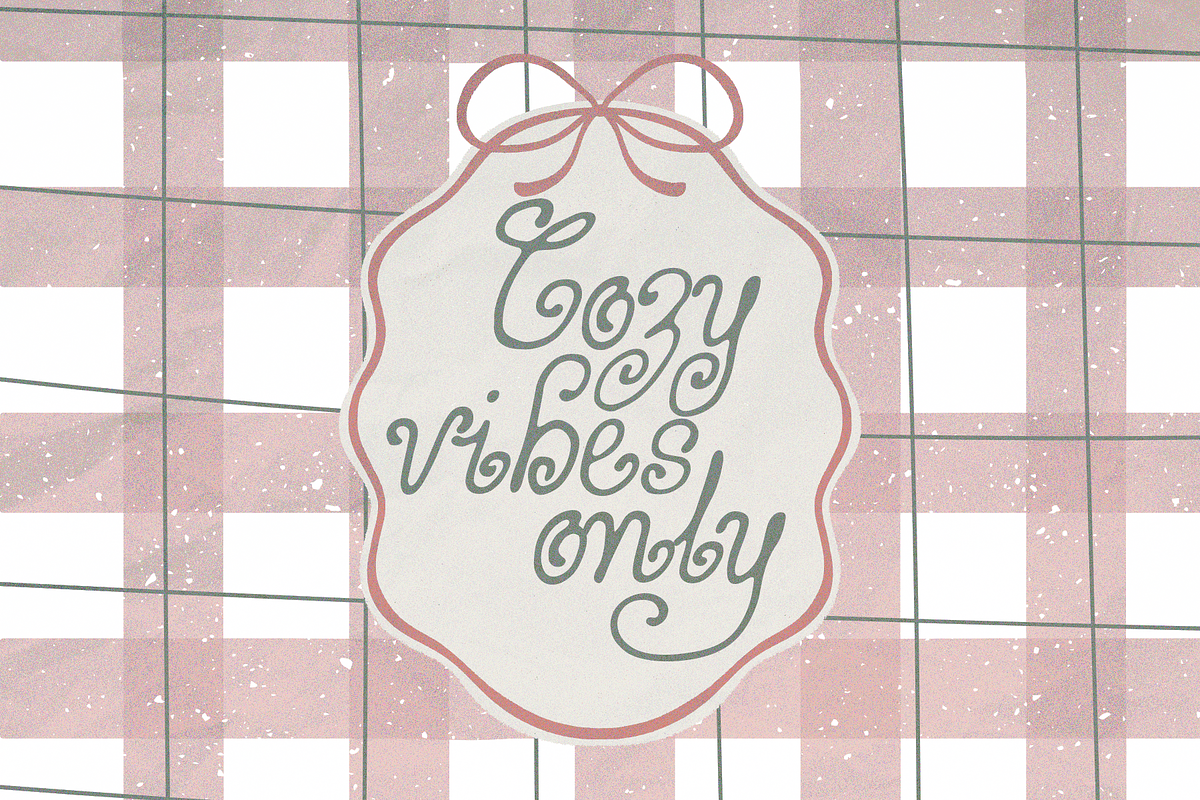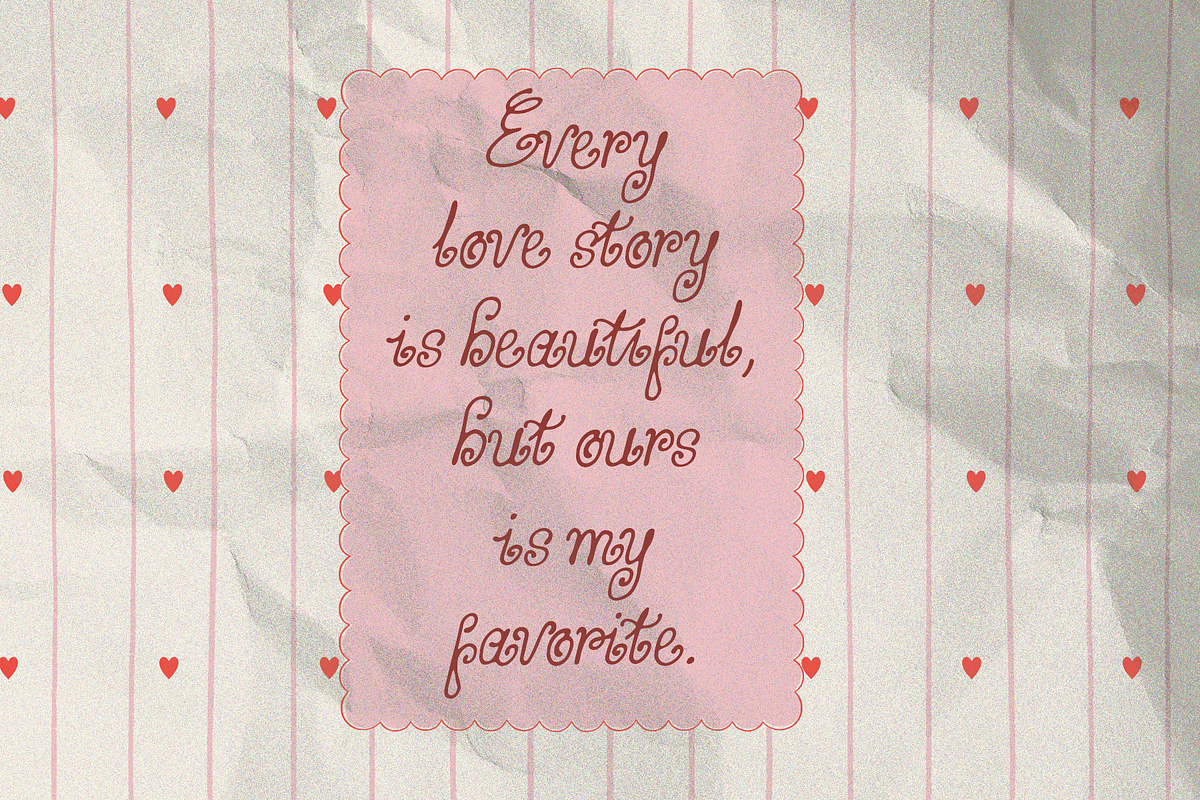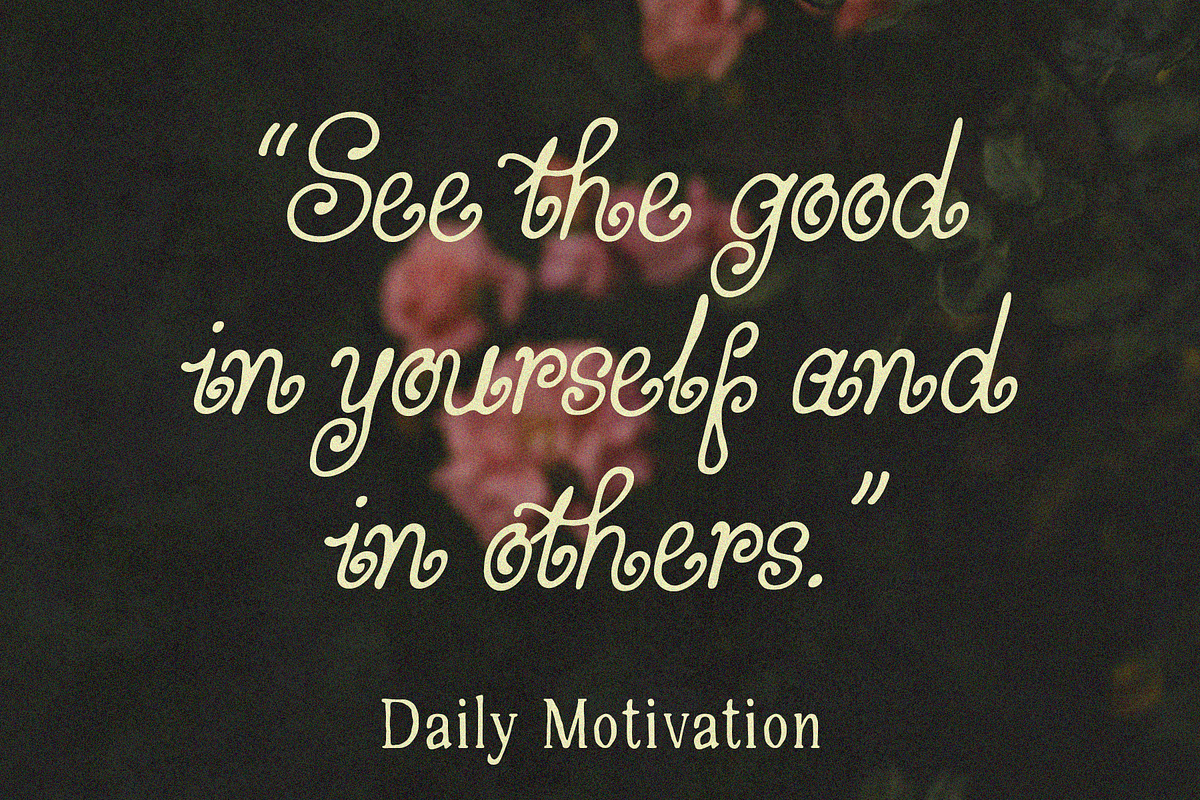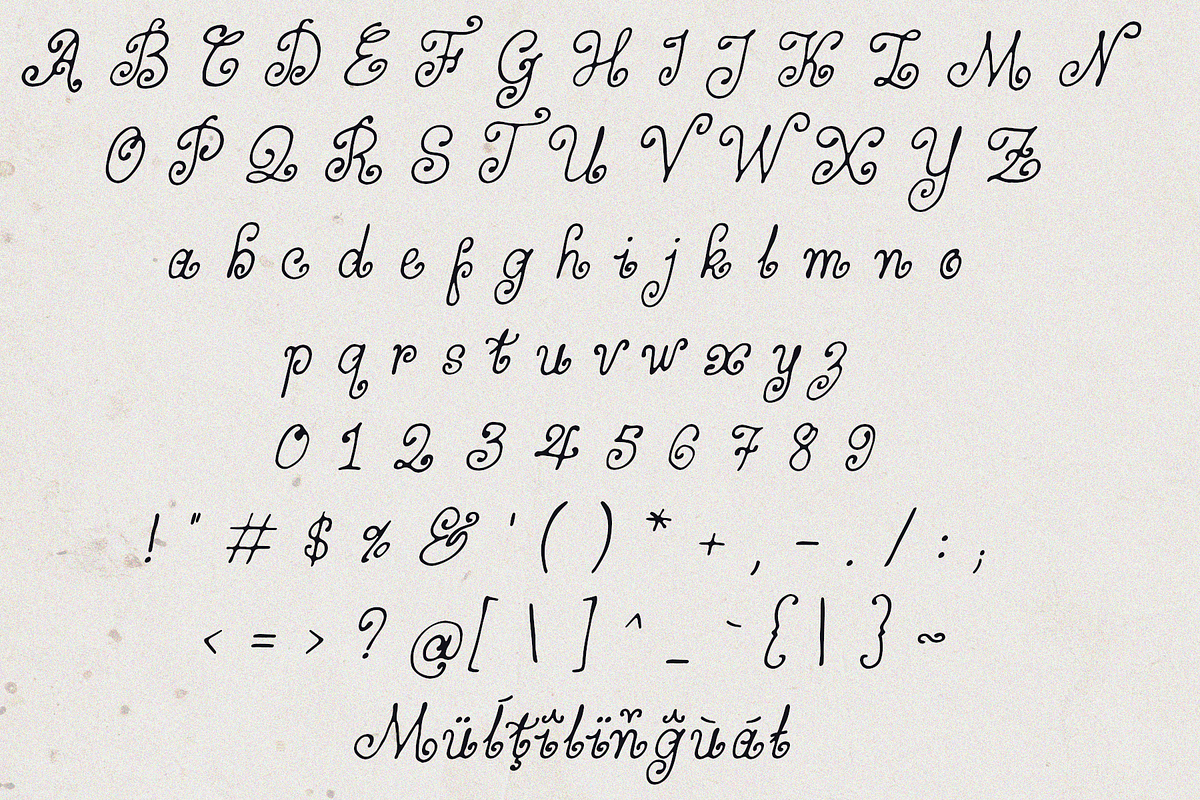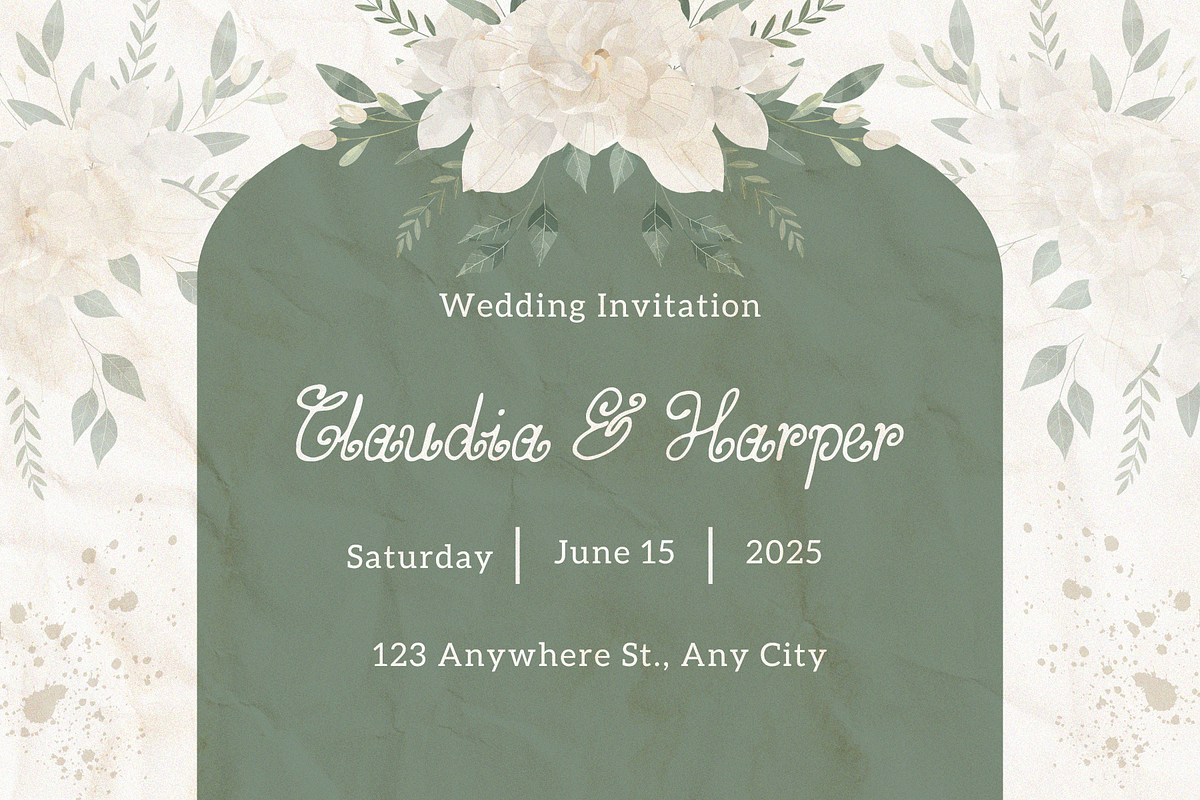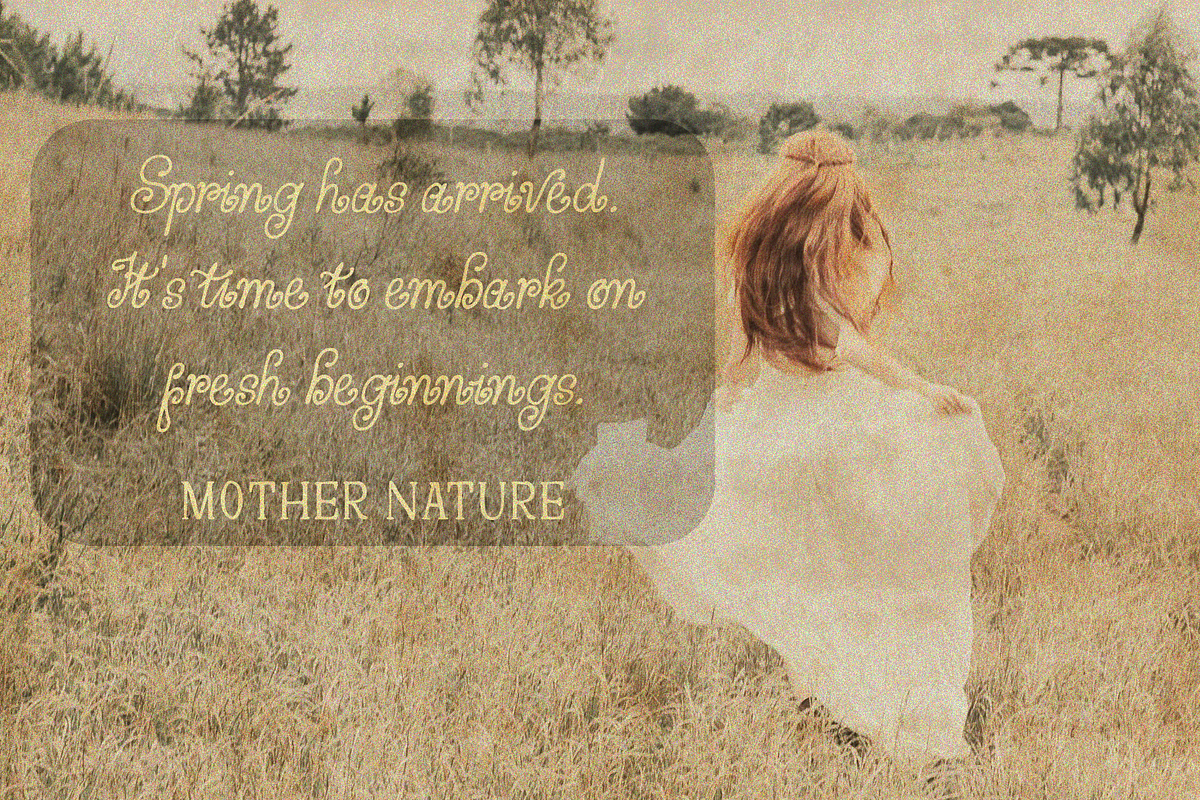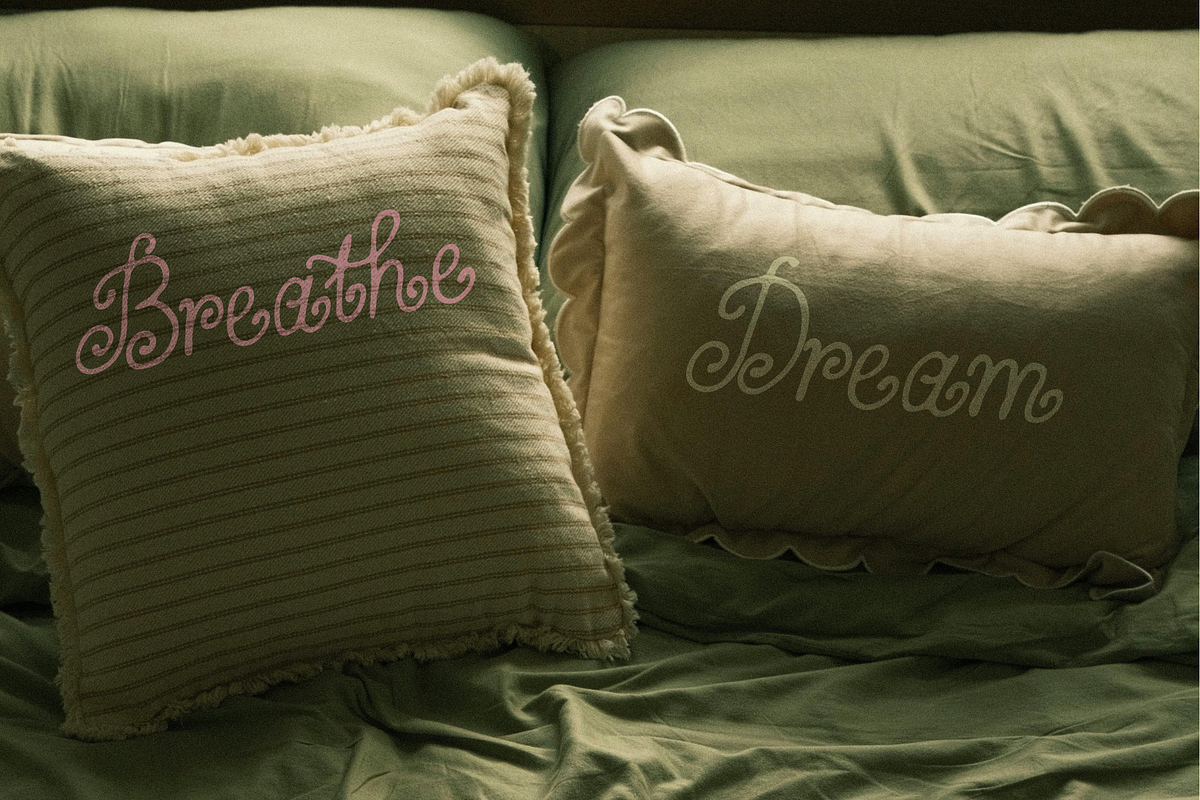
Nenakis – Handwritten Font
Introducing Nenakis, a graceful handwritten font crafted to bring warmth, elegance, and personality into every design. With its flowing curves and soft natural strokes, Nenakis captures the beauty of authentic handwriting while maintaining a clean and stylish appearance. Perfect for wedding invitations, branding, social media, packaging, quotes, and feminine design projects, this font adds a charming artistic touch that feels both modern and timeless.
– Character set A-Z
– Uppercase & Lowercase
– Numerals & Punctuation
– Accented Characters (West Europe)